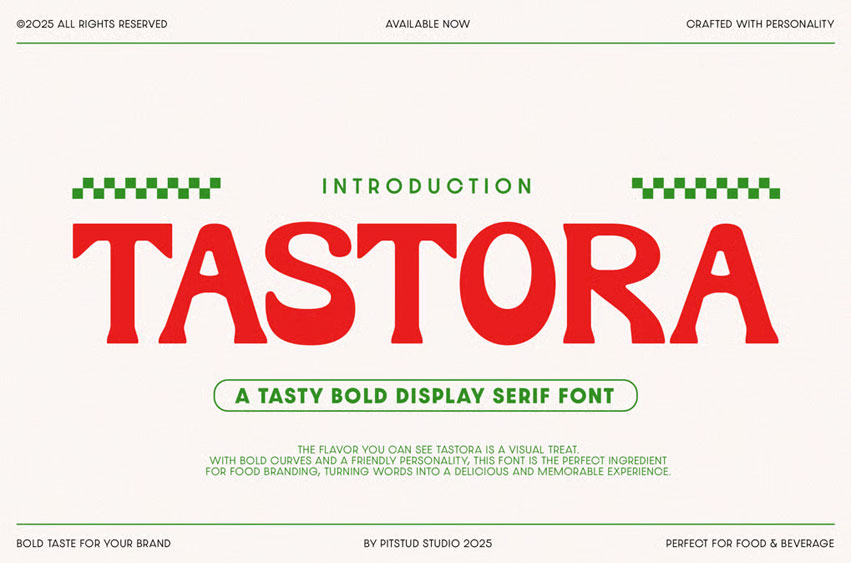
Tastora Font Retro Food Bold Font is a deliciously playful serif typeface designed to bring a retro, bold, and mouth-watering aesthetic to your creative projects. With chunky letterforms and nostalgic curves, Tastora captures the warmth and joy of classic food culture, making it the perfect choice for menus, packaging, and branding that need a flavorful personality.
Whether you’re working on a restaurant logo, food truck branding, vintage menu design, or retro poster artwork, Tastora serves up the perfect balance of bold impact and fun character. Its tasty details make it ideal for eye-catching headlines, social media graphics, advertising, and playful editorial spreads.
• Retro & Bold Design: Strong serif forms with a nostalgic, food-inspired style.
• Complete Character Set: Uppercase, lowercase, numbers, punctuation, and symbols.
• OpenType Features: Alternates, ligatures, stylistic sets.
• Multilingual Support: Supports multiple languages, including English, Spanish, French, German, and Portuguese.
Tastora combines retro charm and bold playfulness to create a typeface that is as fun as it is functional. From branding to advertising, Tastora adapts easily to elevate your food, beverage, and lifestyle designs with flavorful impact.
• Food Branding: Give your café, diner, or restaurant a tasty retro edge.
• Packaging Design: Make food and beverage labels bold and irresistible.
• Menus & Posters: Create eye-catching layouts with playful energy.
• Advertising Campaigns: Stand out with bold and nostalgic visuals.
• Logo Design: Build a unique identity with retro-inspired character.